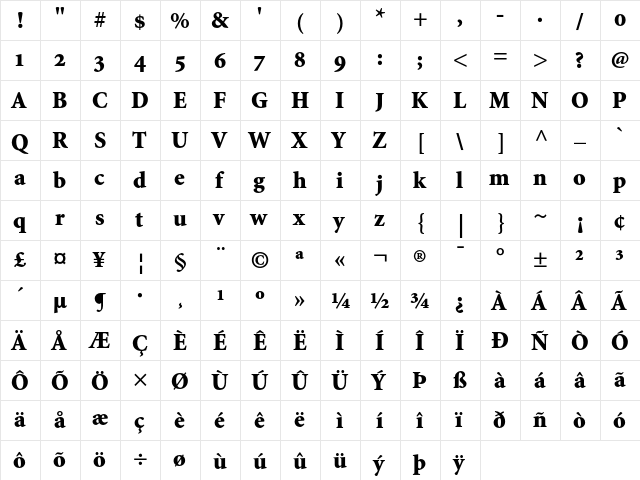
Minion Black Oldstyle Figures
Design Context for Minion Typeface
Minion brings classic typographic sensibility to the table — its serifs and measured letterforms reflect centuries of print heritage.
Pro Tip: Use Minion for editorial body copy and considered headline work. Pair with a neutral sans for UI elements or captions to create a classic hierarchy.